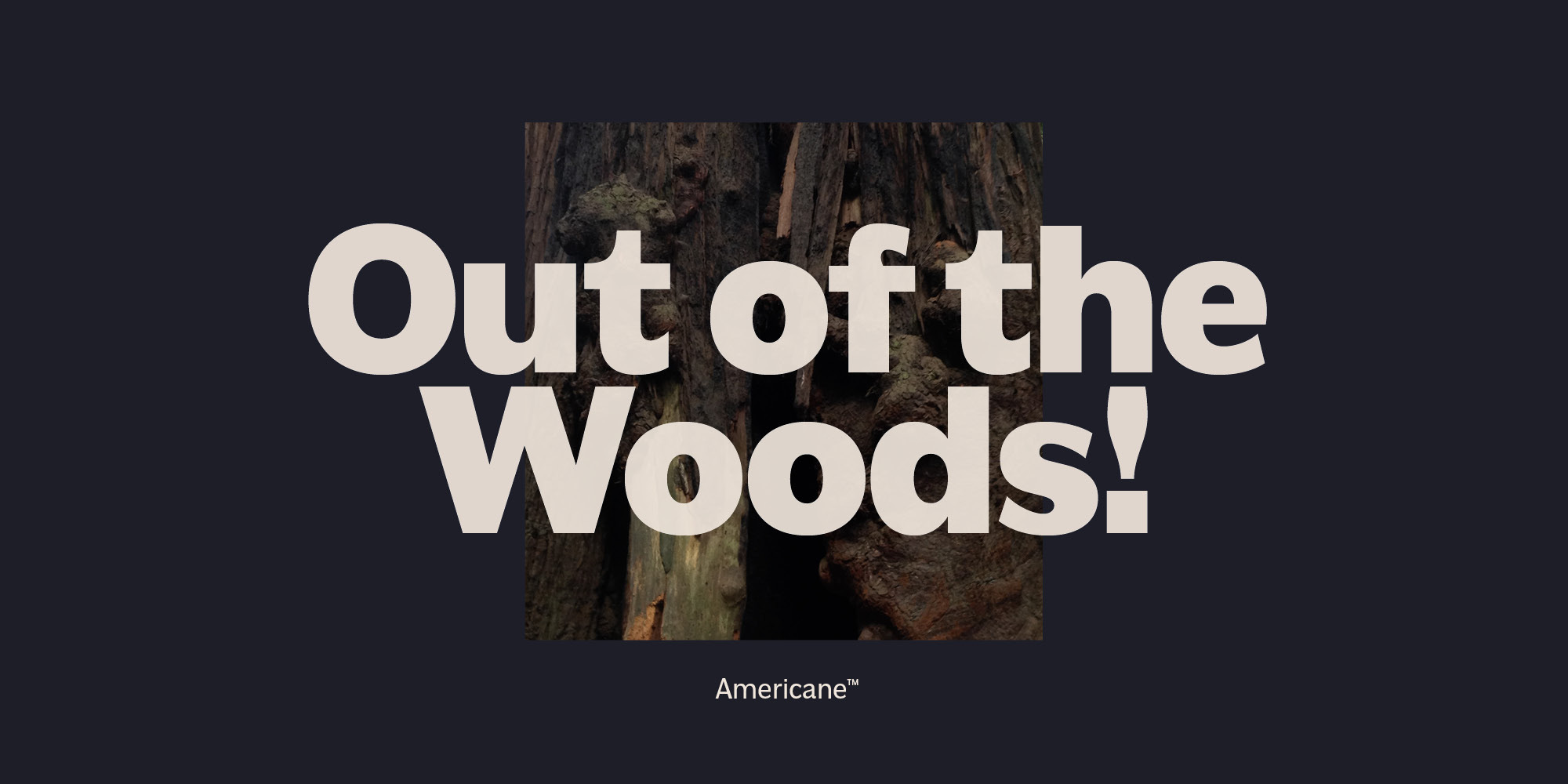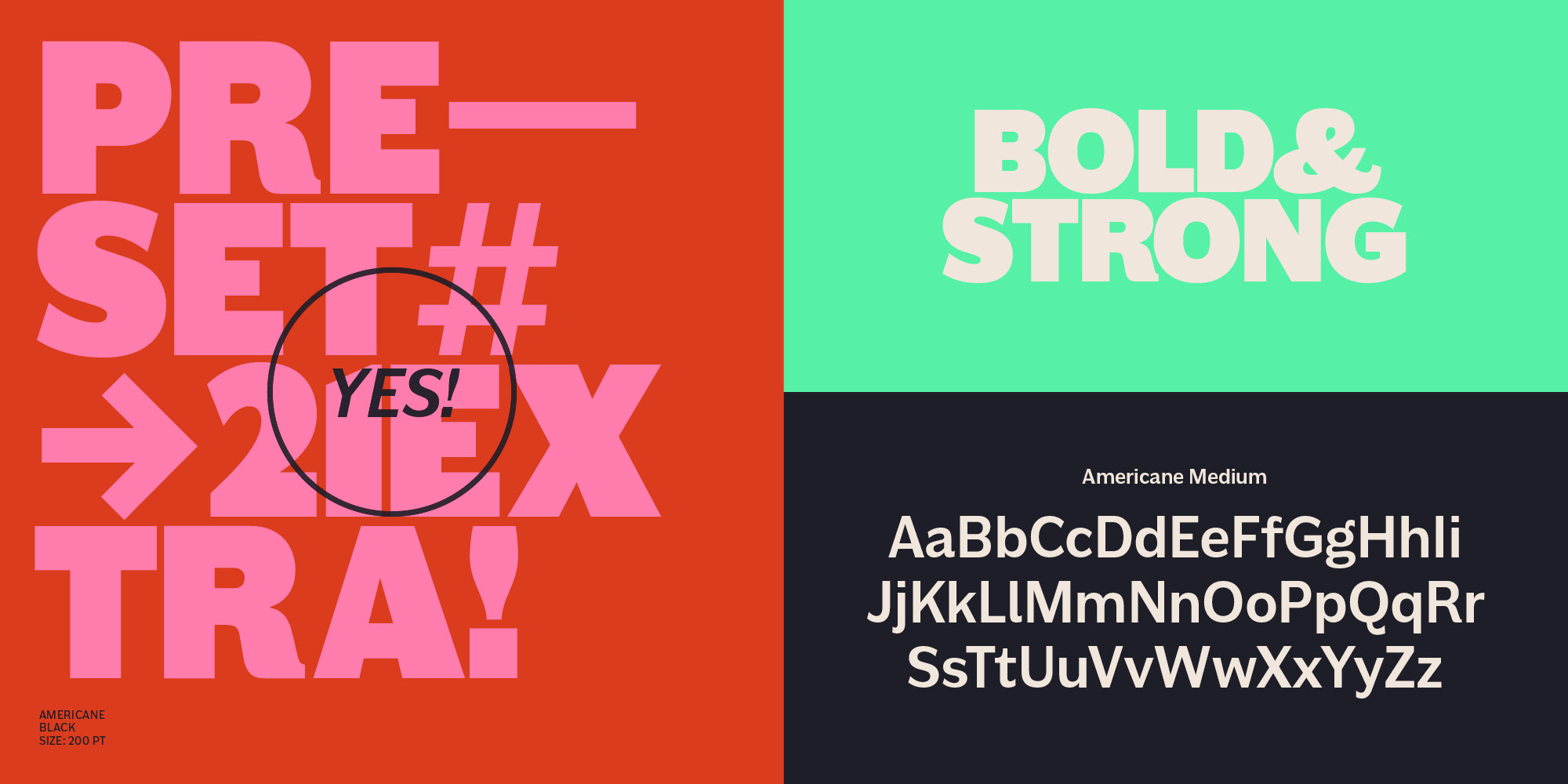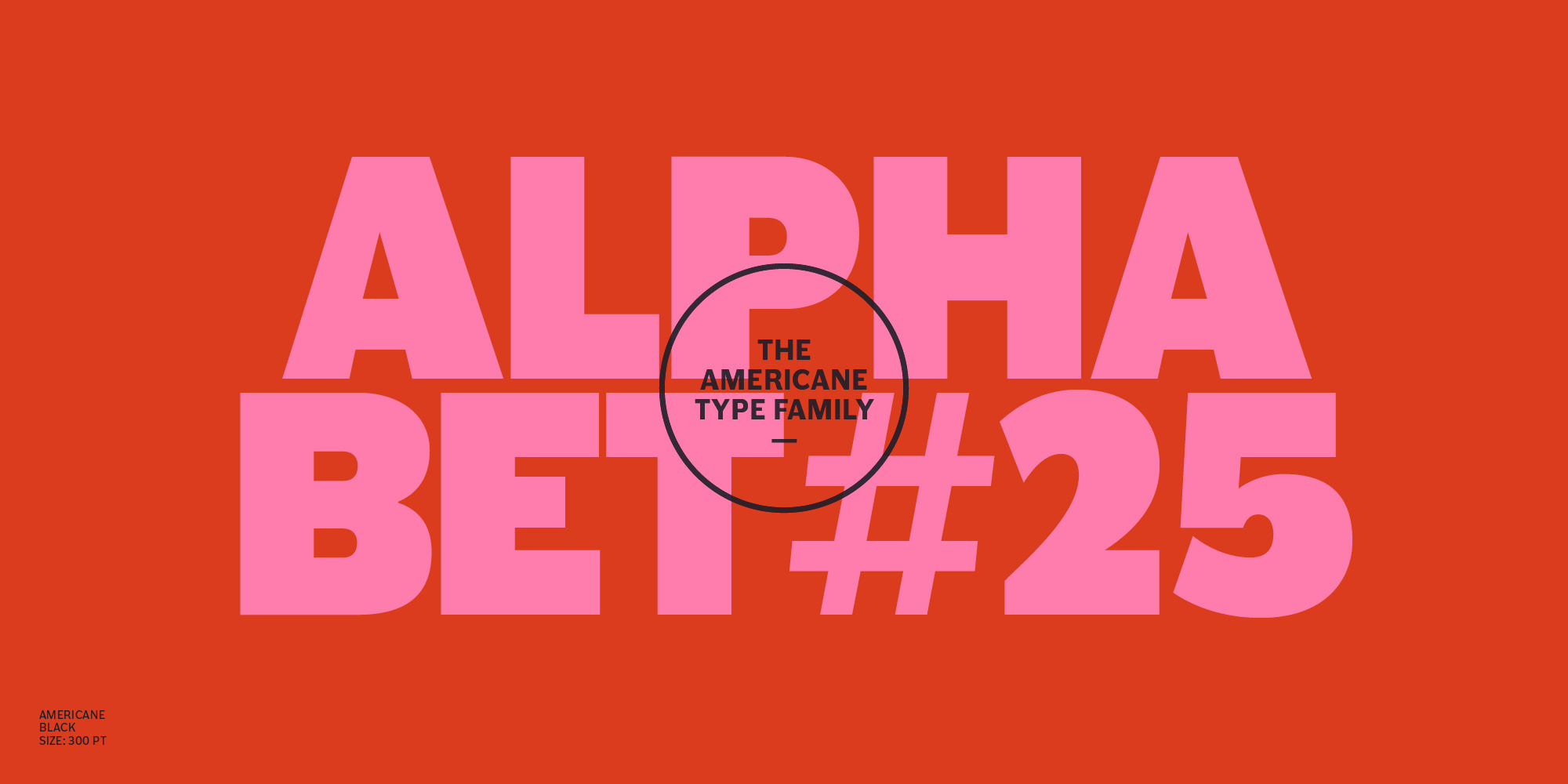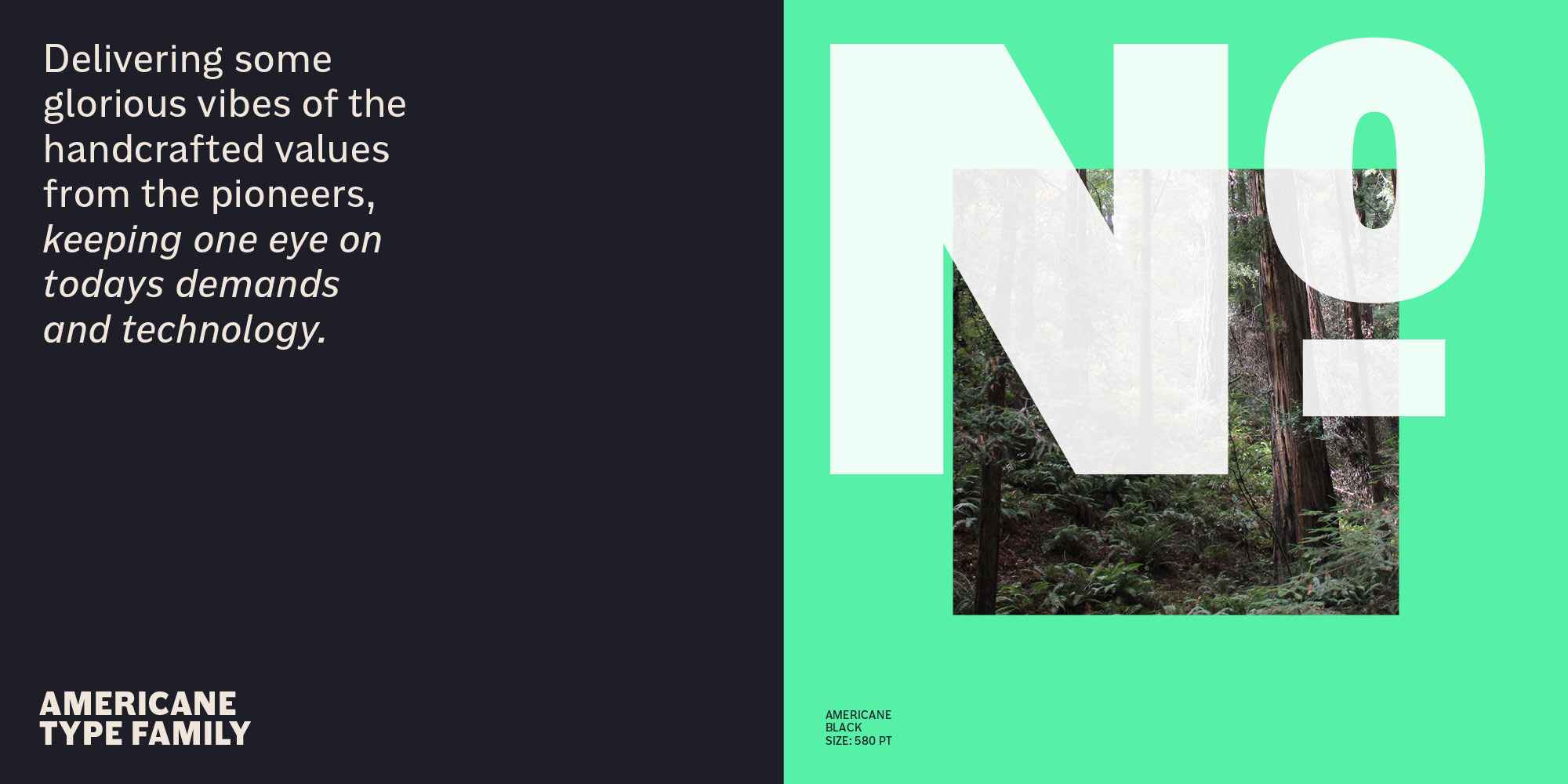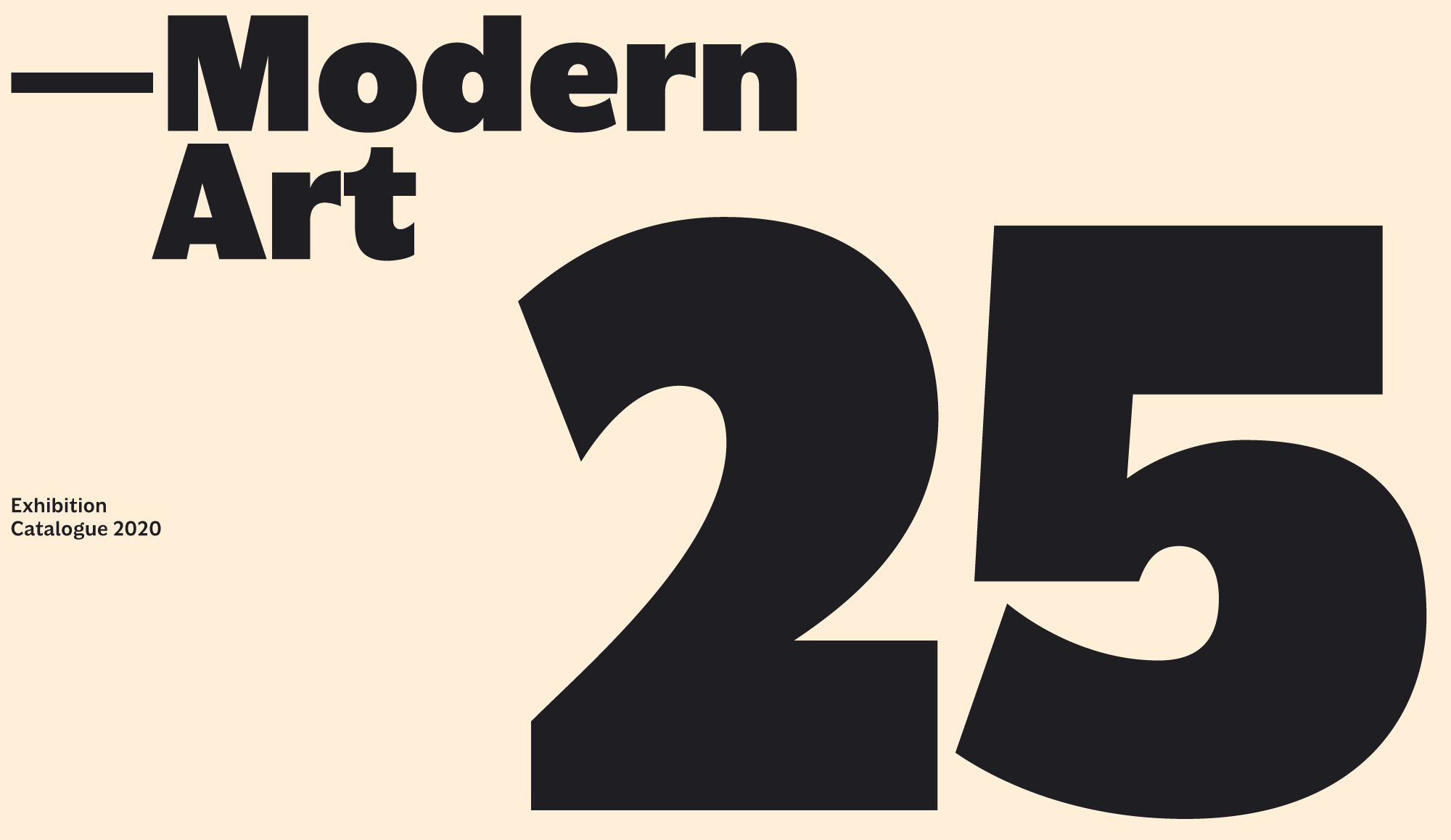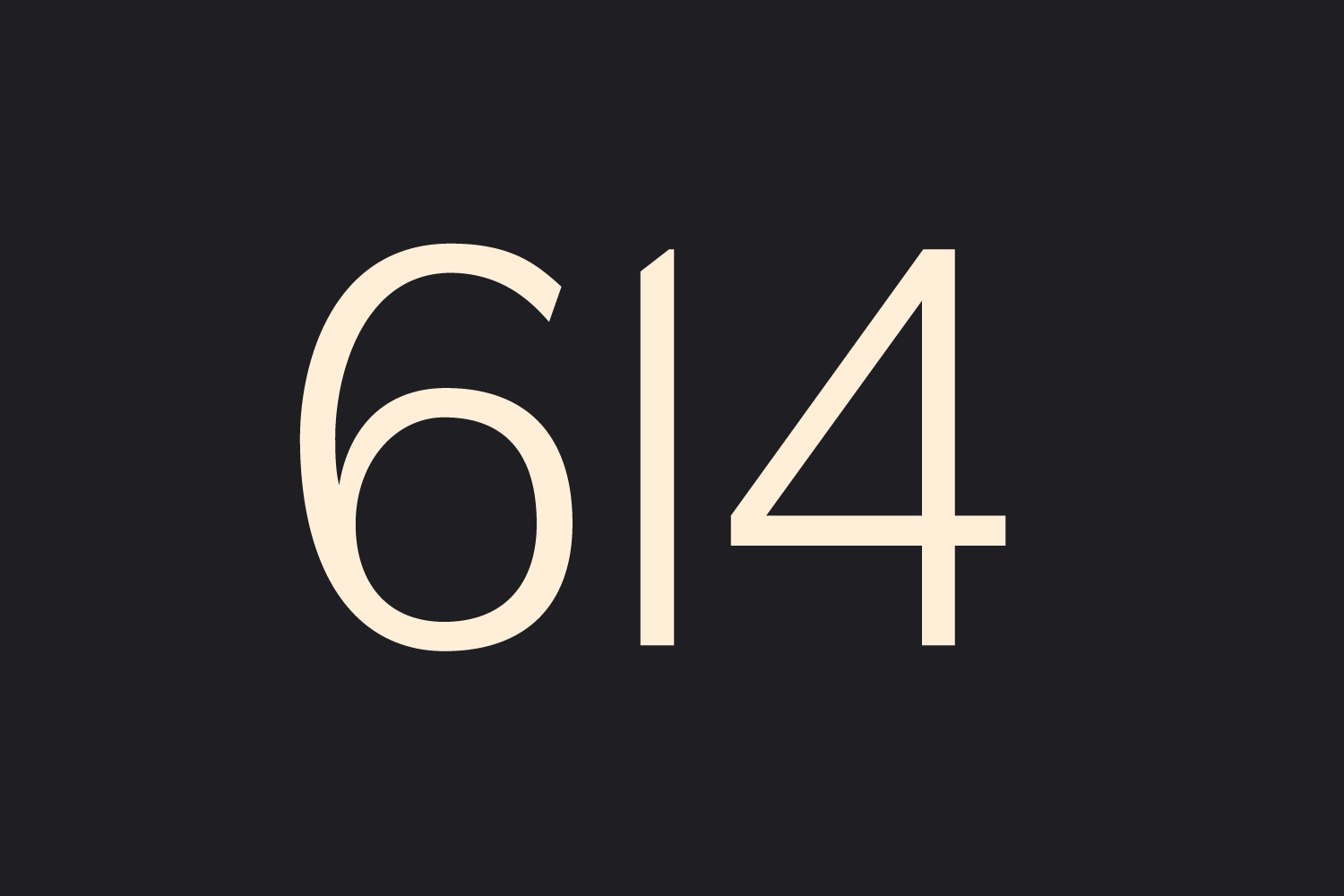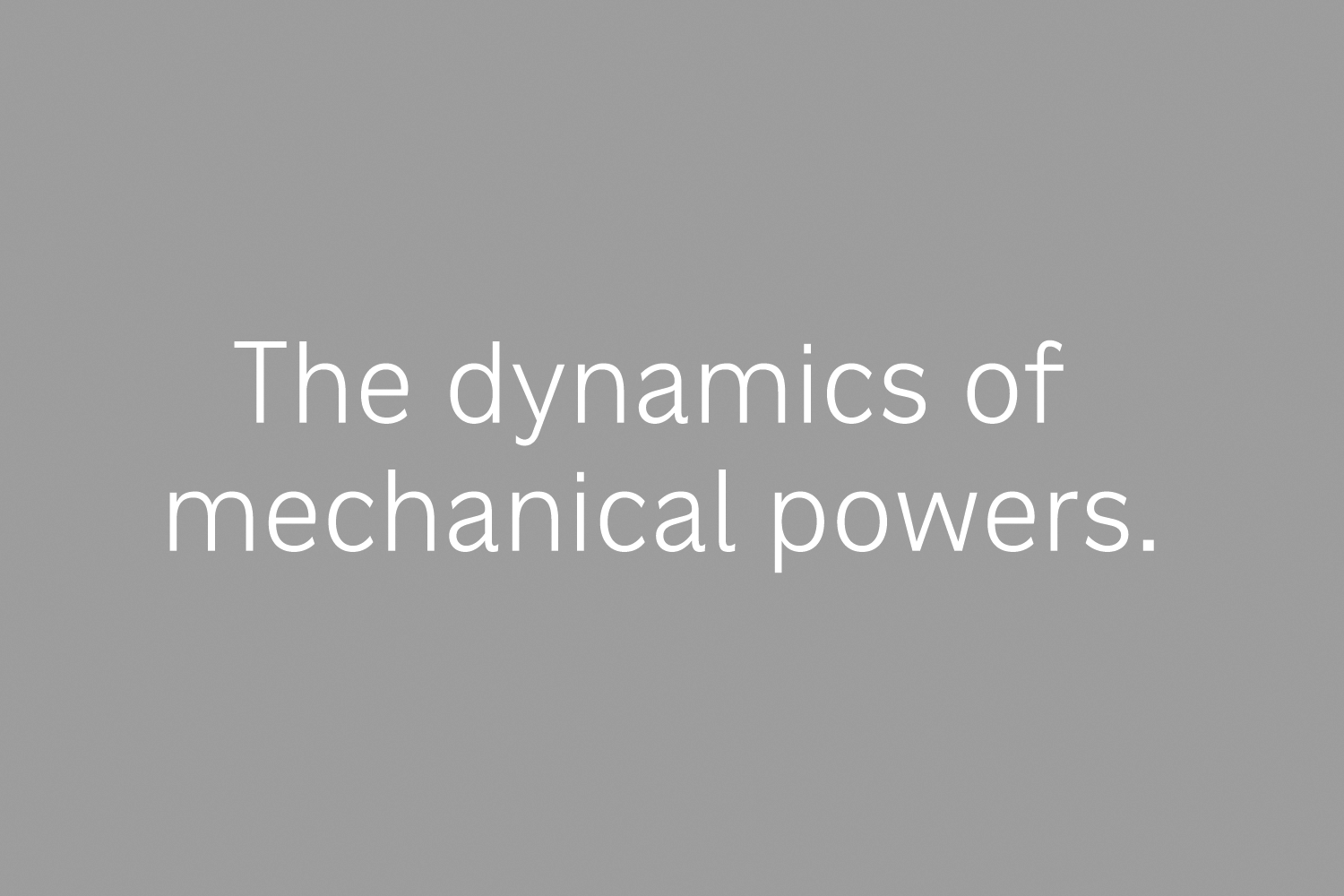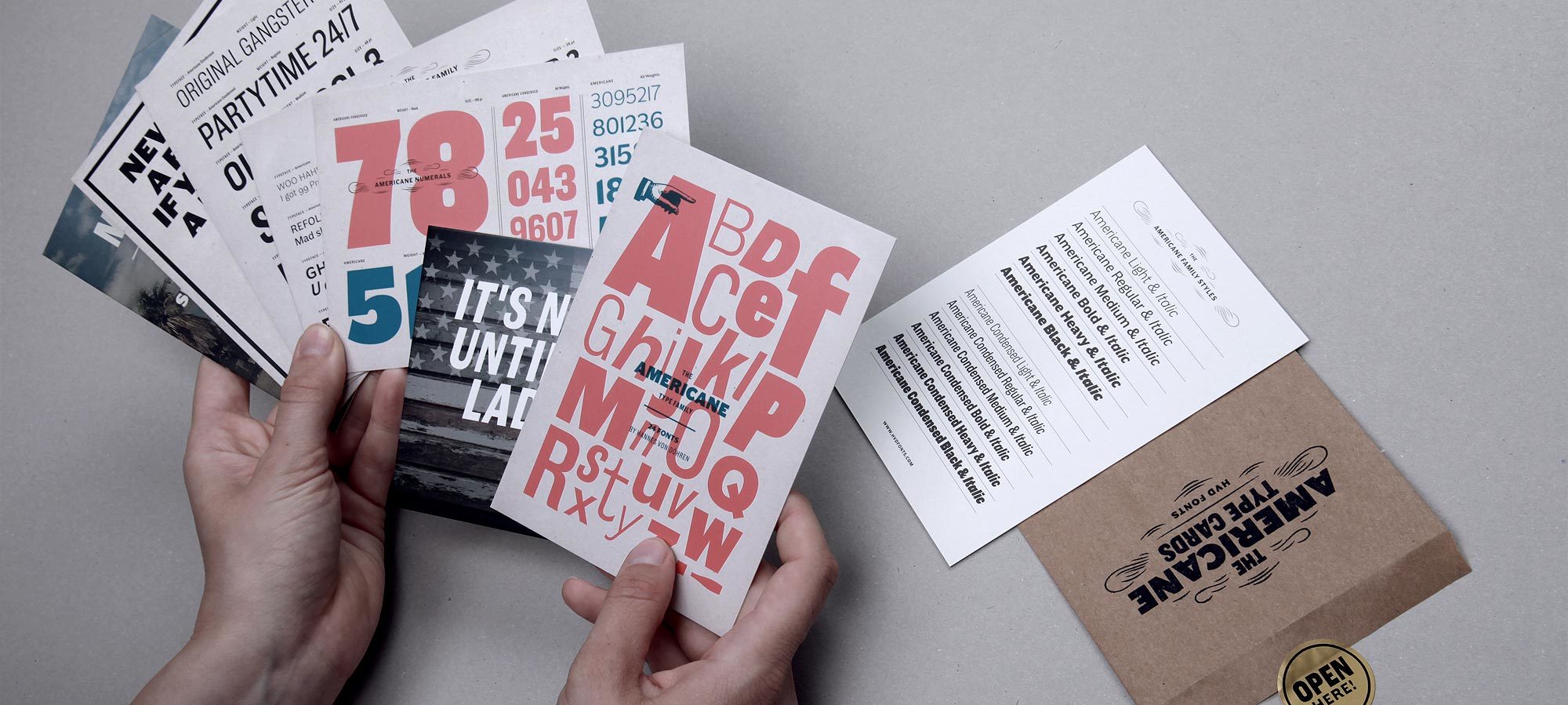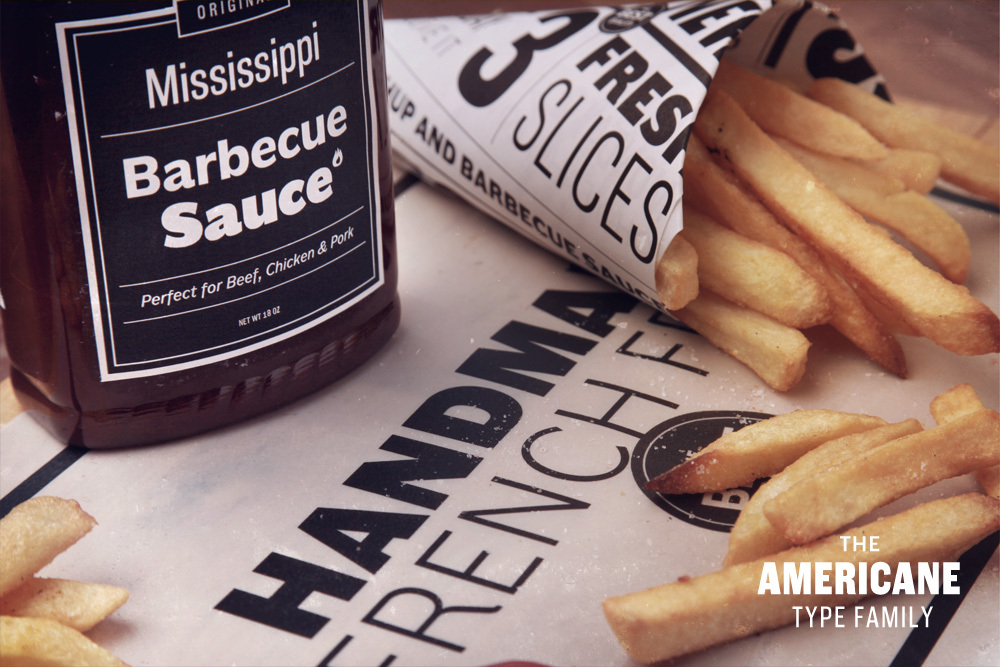
“It’s all about Soul!” – Strong, decided and edgy. Delivering some glorious vibes of the handcrafted values from the pioneers AND keeping one eye on todays demands and technology. Americane is early wood types seen through a new lens, inspired by a wide selection of sources the result is something dramatically different from previous wood type inspired sanses. Representing the same characteristics, the space saving condensed version can be set very compact, while Americane “normal” just has the self confidence to take the space it needs. → Check out Americane Condensed.
Americane is not based on any single existing wood type style, it is actually a combination of the most salient styles of Von Döhren’s survey of the American wood type landscape, applied to a broad use type family. Starting with the lightest weights, the designer’s sensitivity to form delivers a lightline more representative of metal gothics of the period, exhibiting also a subtle dynamism in the curves. Toward Americane’s heavy end, its true character shows, as it is here that the idiosyncratic texture peculiar to wood type begins to emerge. Through it all, the high waists and the high x-height, Von Döhren creates something new that’s still evocative of type you can hold in your hand.
A font of today’s needs has to include more than just the alphabet and some punctuation. Besides a big number of accented letters, making sure that the typeface has a good language support, a font should include several features for excellent typographic work joining forces with the layout applications of the time and of course the user. Here is a selection of what this font family has to offer under the hood.
In addition to the standard lining figures, the fonts contain a set of tabular figures. This means that all numbers have the same width, which is useful for setting up invoices, tables or every other task where the figures should have a structured appearance among themselves.